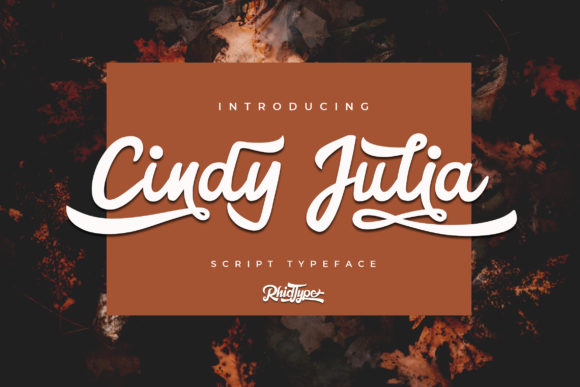
The Elusive Font: A Designer’s Love Affair with Cindy Julia
I still remember the frustration of working on a project, hours spent searching for the perfect font, only to come up empty-handed. My client wanted something elegant, yet modern; a font that would make their brand stand out. That’s when I stumbled upon Cindy Julia, a beautiful handwritten font that stole my heart. In this article, I’ll share my love for Cindy Julia, its features, and how to make the most of it in your designs.
First Impressions: What I Love About Cindy Julia
Cindy Julia is an elegant and flowing handwritten font, perfect for designers, crafters, and creative hobbyists. Here are some of the features that make it special:
- ✅ Varying baseline for a natural, handwritten feel
- ✅ Smooth lines and gorgeous glyphs
- ✅ Stunning alternates for added creativity
- ✅ Classy calligraphic influences with a contemporary twist
The Honest Review: Quirks and Limitations
While Cindy Julia is an amazing font, it’s not perfect. Here are a few quirks to keep in mind:
- 🤔 Limited use on smaller font sizes, as some details may get lost
- ⚠️ Some glyphs and swashes might require manual adjustments for optimal results
A Practical Guide: Using Cindy Julia in Your Designs
The Designer Inspiration Behind Cindy Julia
Cindy Julia was designed with the intention of creating a font that embodies both elegance and playfulness. The designer aimed to craft a font that would be versatile, allowing users to create beautiful, high-end designs with ease. With its PUA encoding and extensive glyph library, Cindy Julia has become a go-to font for designers seeking a sophisticated, yet modern look.
| Is Cindy Julia suitable for body text or long-form content? | While Cindy Julia is an elegant font, it’s best suited for headlines, titles, or short-form content. For body text or long-form content, consider using a more legible font. |